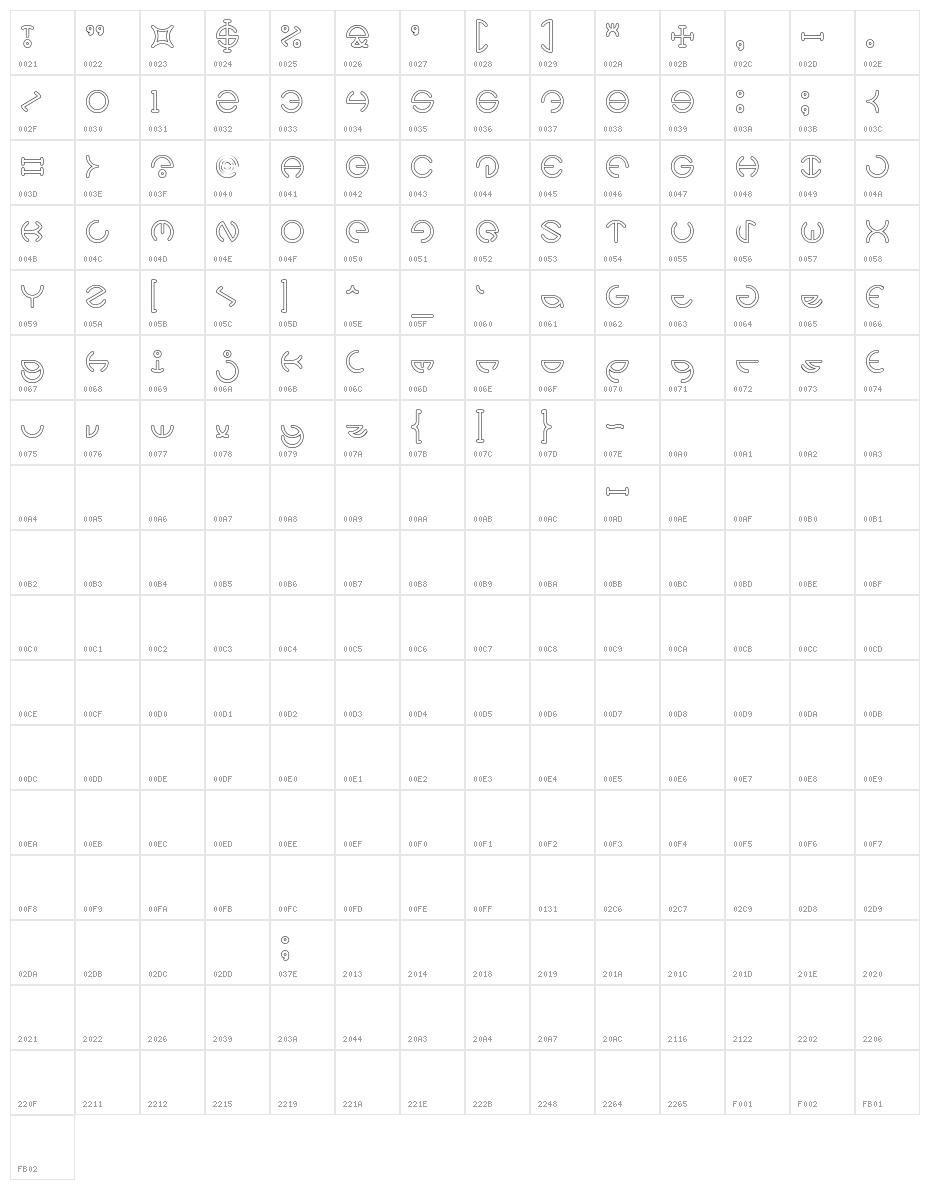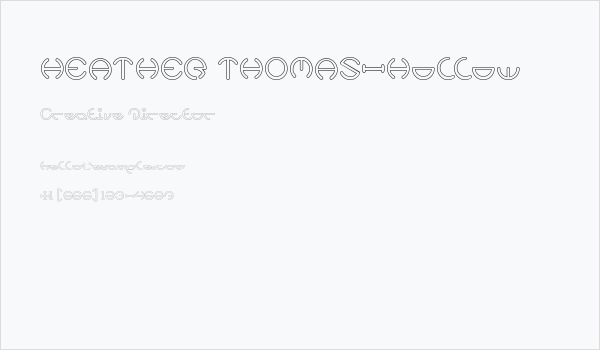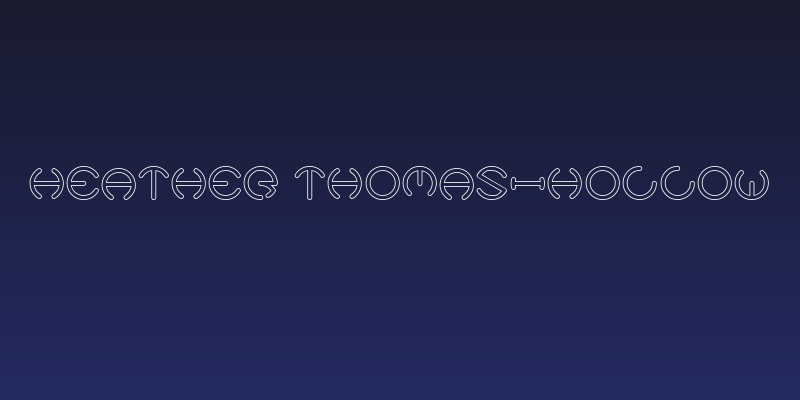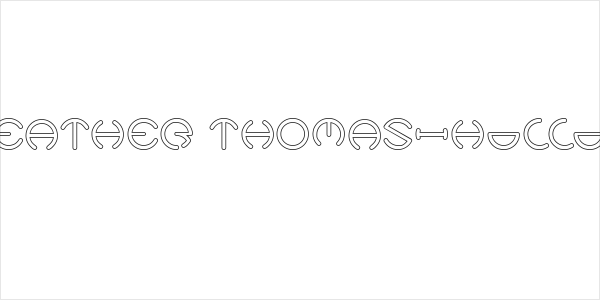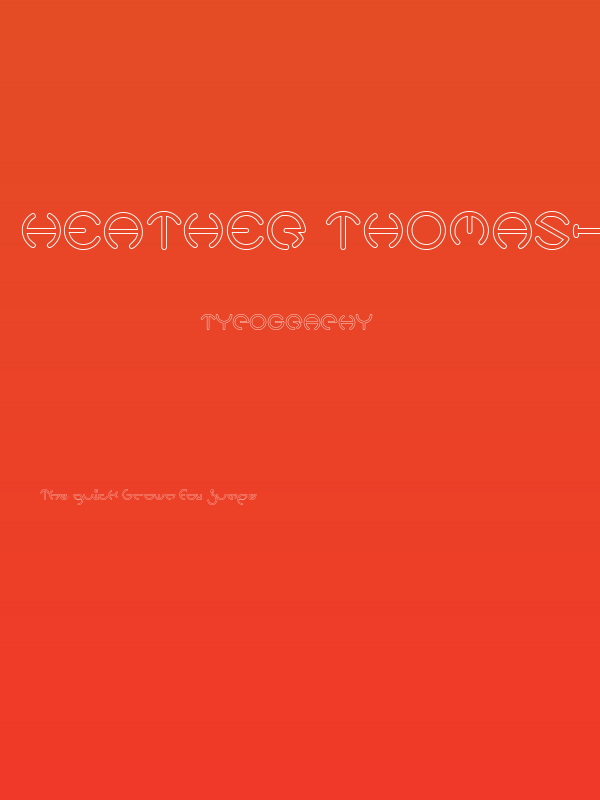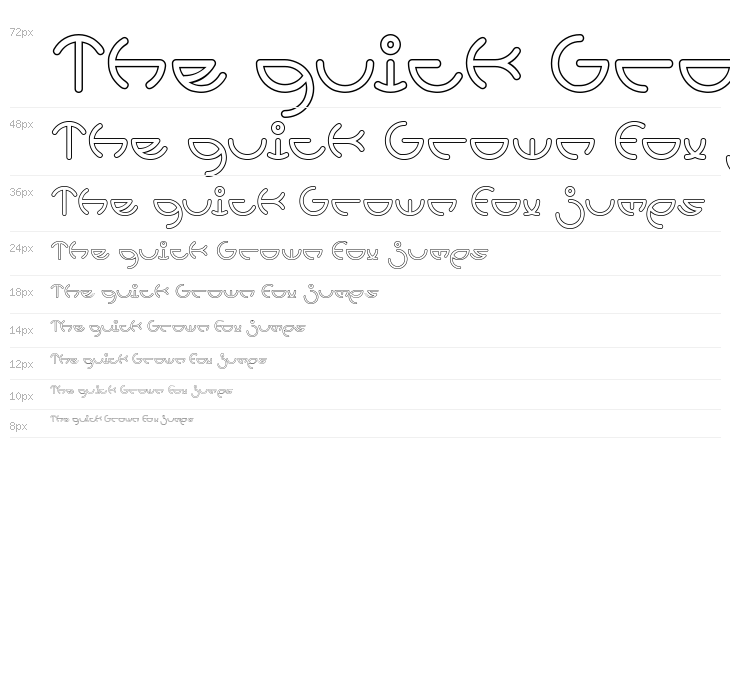
HEATHER THOMAS-Hollow Font
HEATHER THOMAS-Hollow Description
This font features a unique hollow design with a futuristic and geometric aesthetic. The characters are composed of continuous lines that form rounded shapes, giving it a distinct and modern appearance. The uppercase and lowercase letters share a consistent style, with smooth curves and symmetrical forms. Numbers and special characters maintain the same hollow and geometric theme, making the font cohesive across all elements. Its design is both playful and sophisticated, suitable for creative and artistic projects.
| Use Case | Logos, Posters, Creative projects |
| Proposed Projects | Ideal for sci-fi themed designs, modern art posters, branding for tech companies, and creative digital media. |